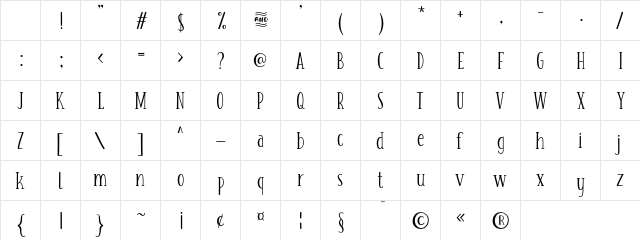
Complete HONEY&JAM Regular glyph index. Displaying only characters natively supported by HONEY&JAM Regular font.
HONEY&JAM is a composed and adaptable typeface that performs quietly and consistently across a wide range of design contexts.